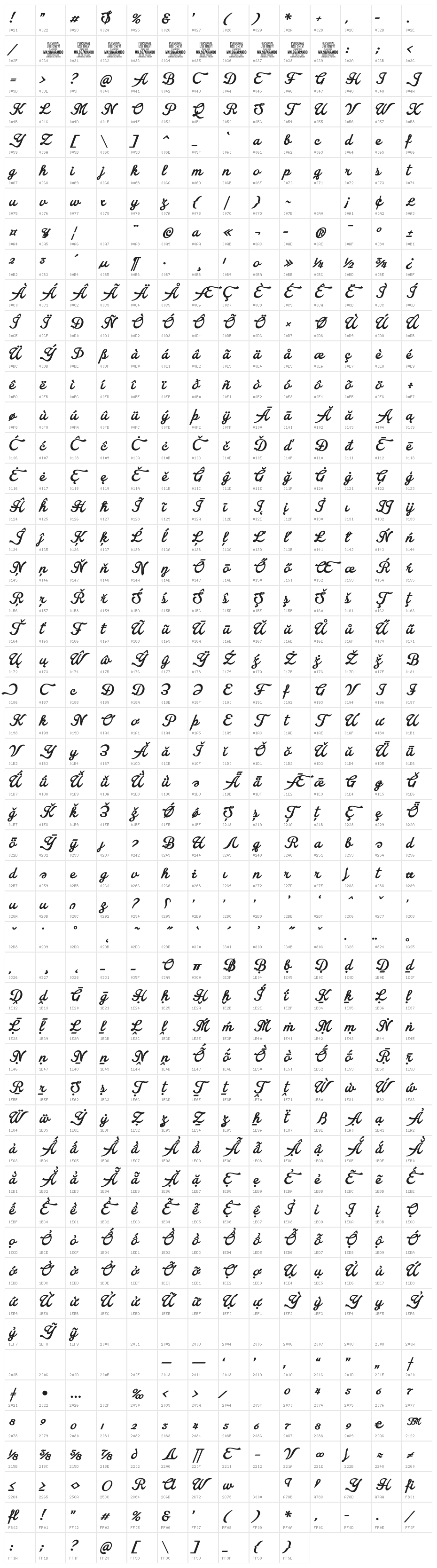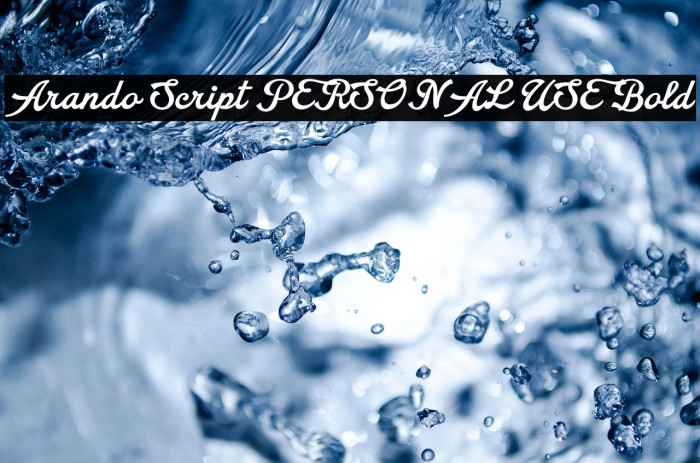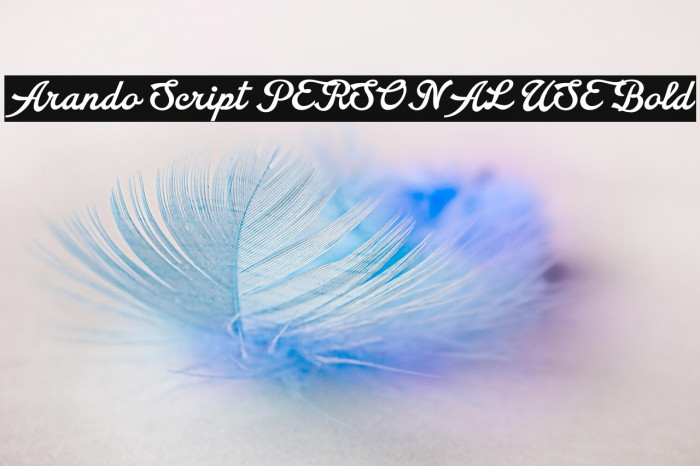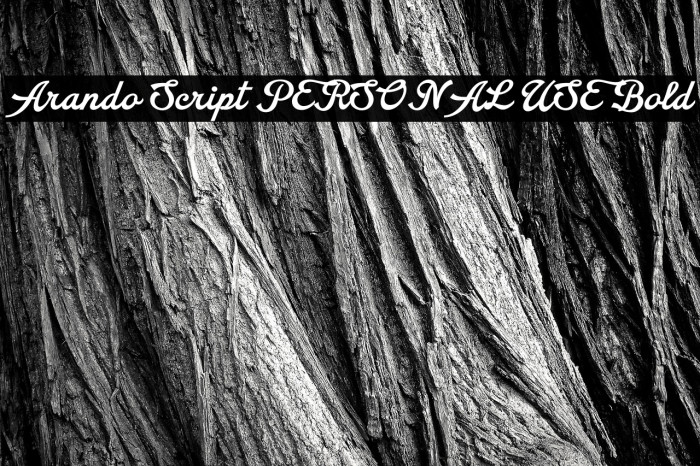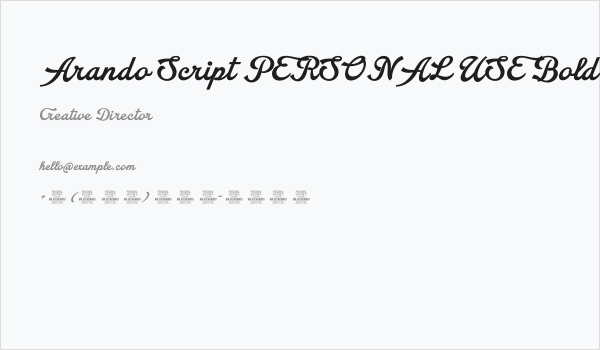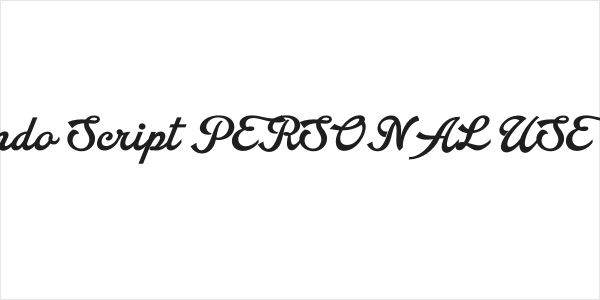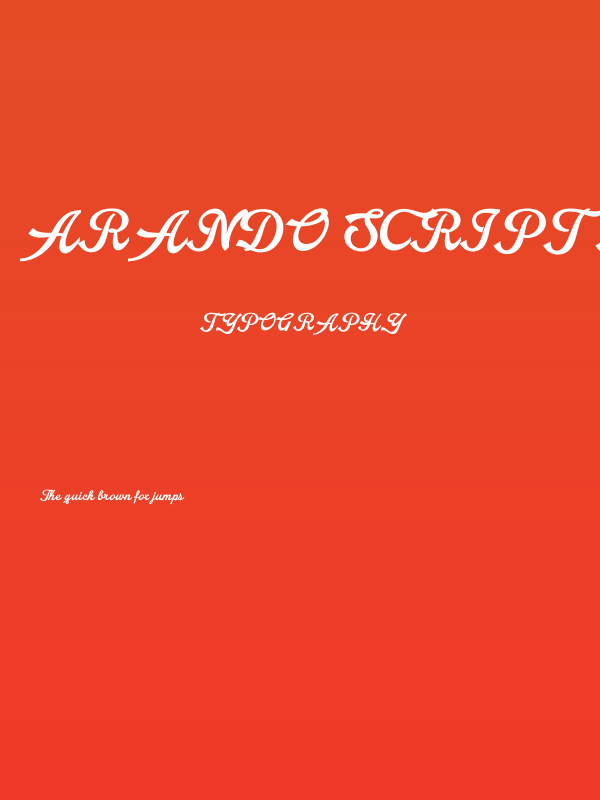
Arando Script PERSONAL USE Bold Font
Arando Script PERSONAL USE Bold Description
This elegant script font features flowing, interconnected letters that exude a sense of sophistication and style. The uppercase letters are bold and sweeping, with graceful curves and flourishes that add a touch of drama. The lowercase letters maintain a consistent flow, enhancing readability while retaining the decorative flair. The numerals and special characters are designed to complement the overall aesthetic, ensuring a cohesive look across all text elements. This font is ideal for projects that require a personal, handwritten touch, such as invitations, greeting cards, and branding materials.